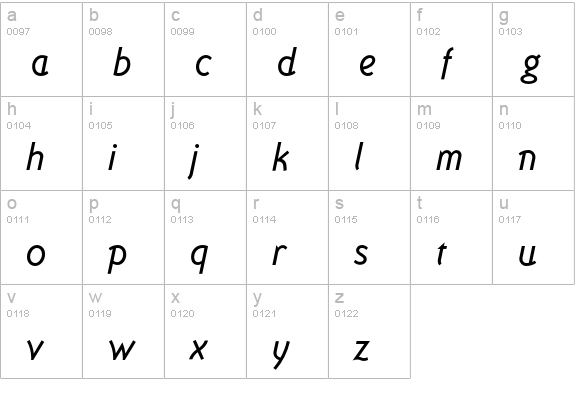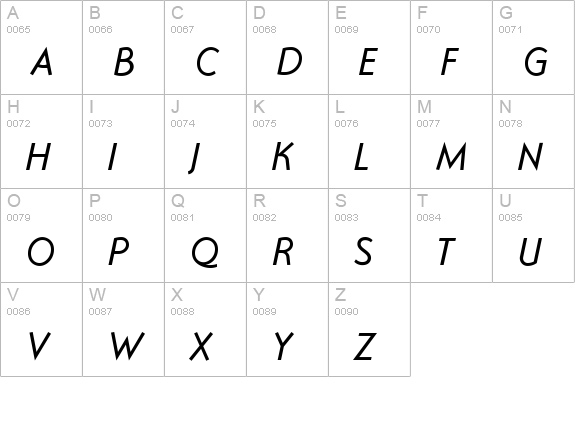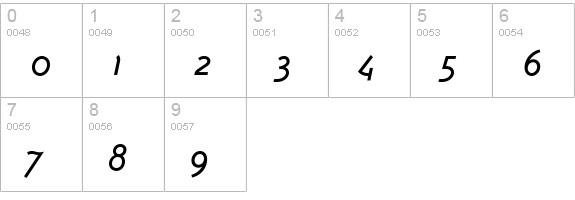
OttomatItalic Font Details
Introducing OttomatItalic font, a sleek and elegant typeface designed to add a touch of sophistication to your projects. This font exudes a sense of modernity and style, making it perfect for a wide range of design applications. OttomatItalic features a unique blend of curves and angles that create a harmonious and visually appealing look. What sets OttomatItalic apart is not only its striking design, but also the fact that it is available for free download at FontsMarket.com. This means that you can easily access and use this beautiful font in your personal and commercial projects without any cost. Whether you are designing a website, creating marketing materials, or working on a branding project, OttomatItalic is sure to elevate your designs and make a lasting impression. With its versatility and eye-catching aesthetic, OttomatItalic is a must-have addition to any designer's toolkit. Download this stunning font today and unleash your creativity with this free and accessible typeface.